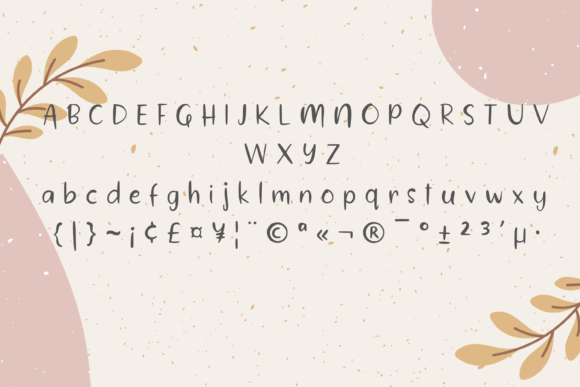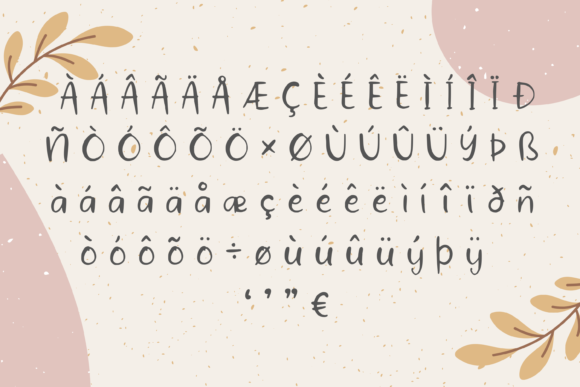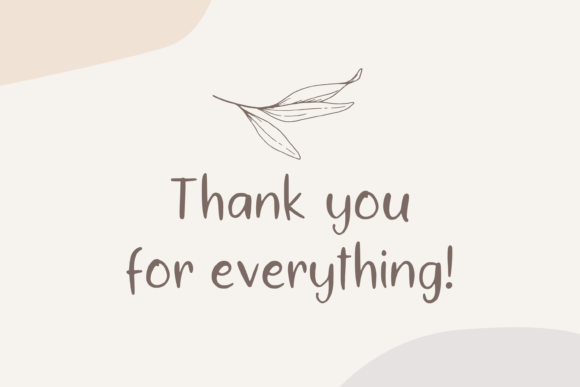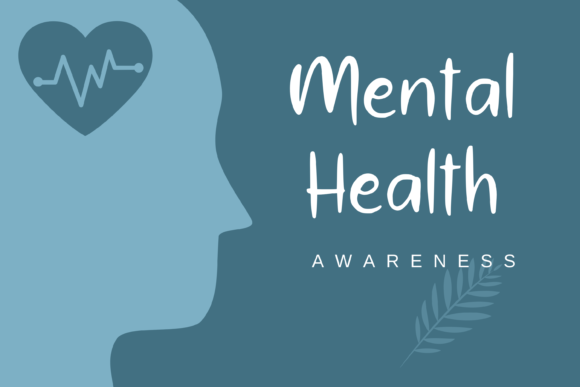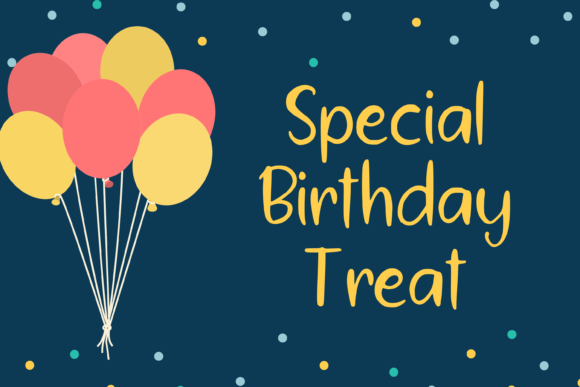
Introduction to Humbert Font
Humbert is a playful and friendly handwritten font perfect for SVG designs, farmhouse signs, T-shirts, branding, ornaments, mugs, headings, blogs, logos, invitations and more.
Key Features of Humbert Font